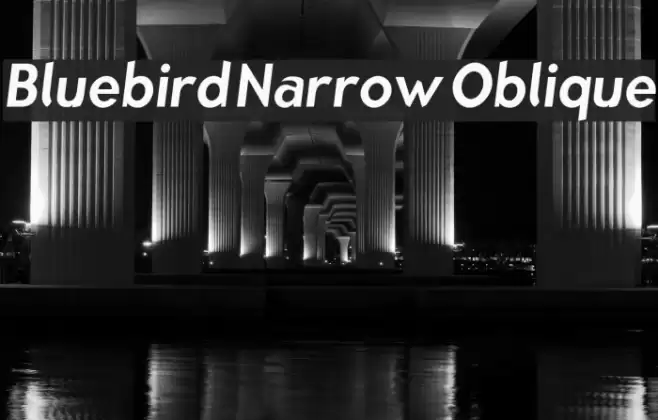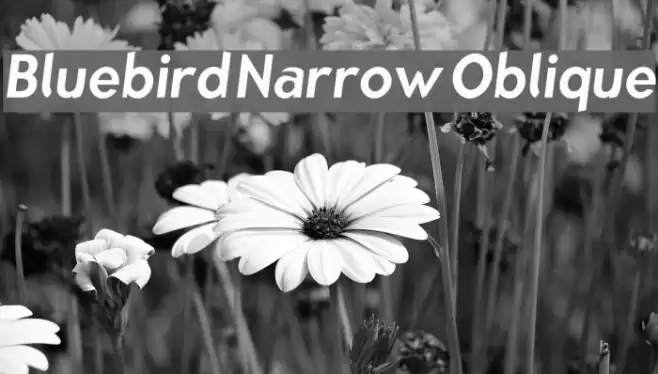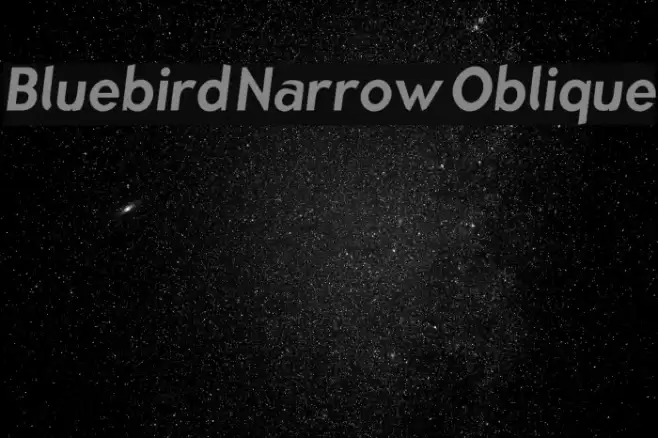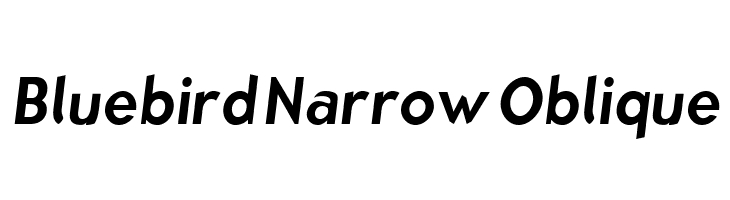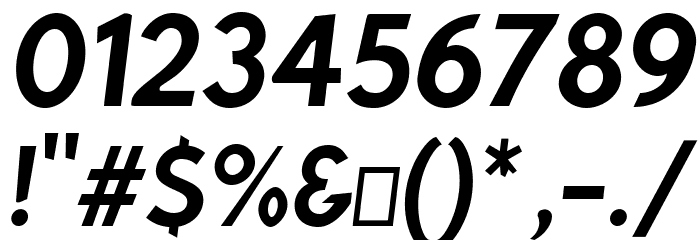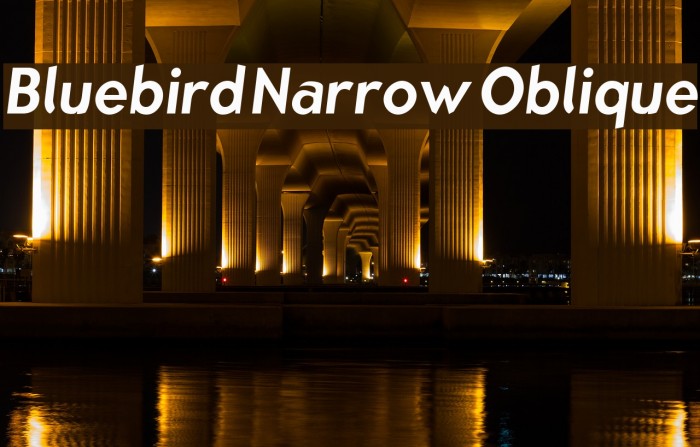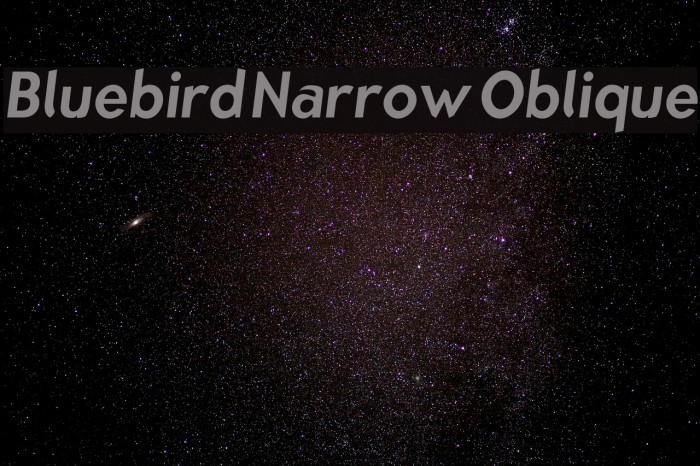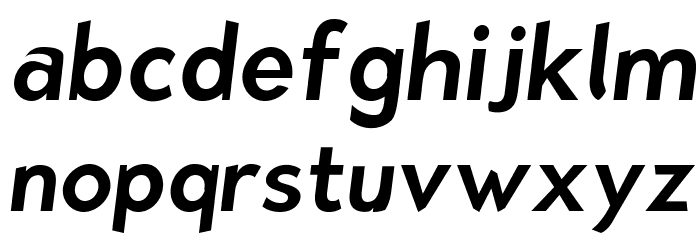
Bluebird Narrow Oblique
This font features a sleek, oblique style with a narrow width, giving it a modern and dynamic appearance. The characters are slightly slanted, adding a sense of motion and energy. The strokes are consistent in thickness, providing a uniform look across all characters. The font maintains clarity and readability, making it suitable for various design applications. The uppercase and lowercase letters are well-proportioned, and the numerals are clear and distinct. Special characters are included, enhancing its versatility for different uses.
A modern, narrow oblique font with consistent stroke thickness and dynamic style.
- Proposed Projects: Ideal for branding, advertising, and editorial design where a modern and dynamic look is desired.
- Width: Condensed
- Use Case: Headlines, Logos, Advertising